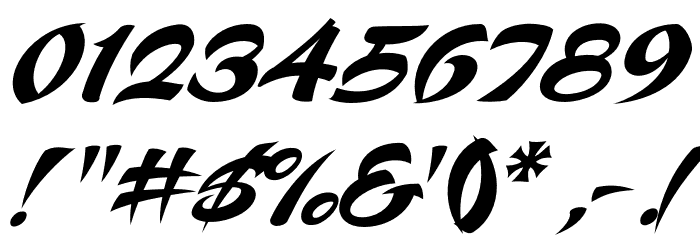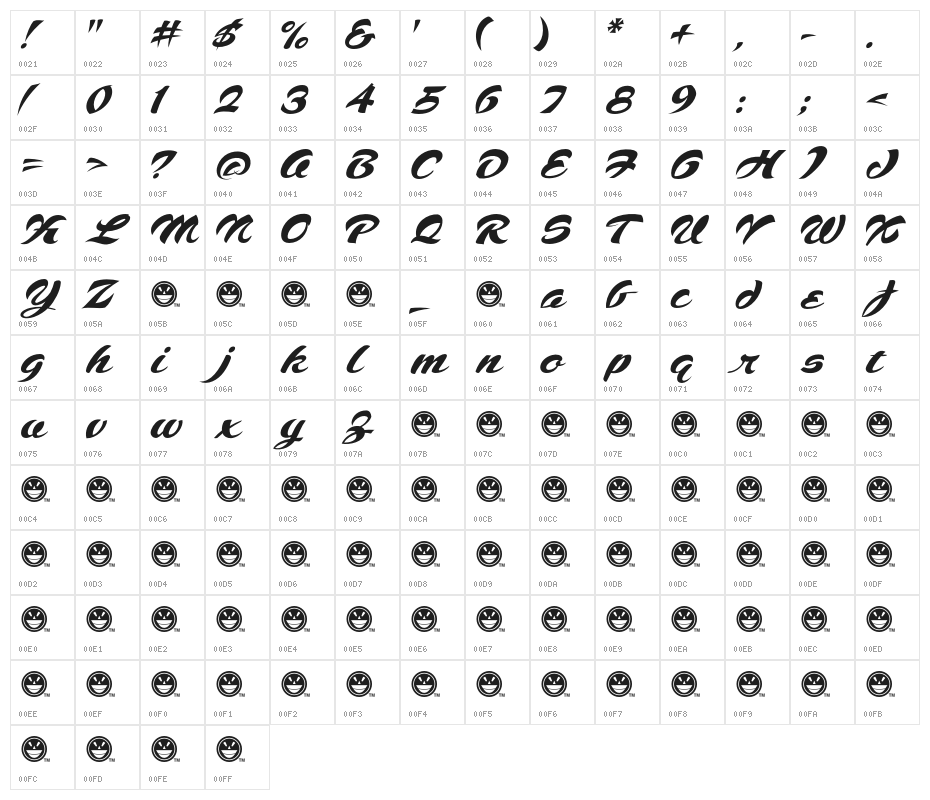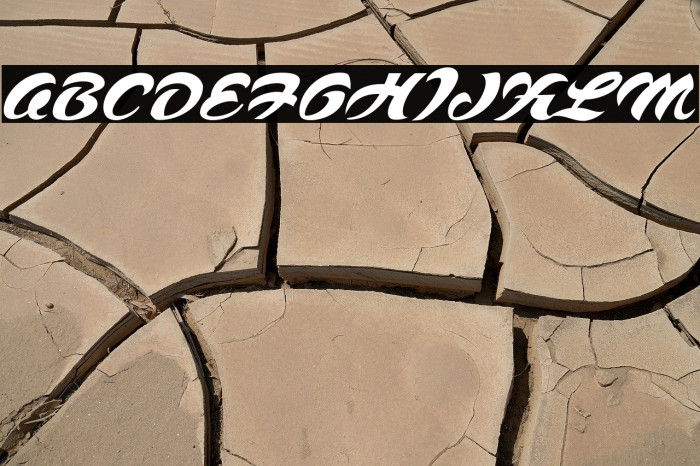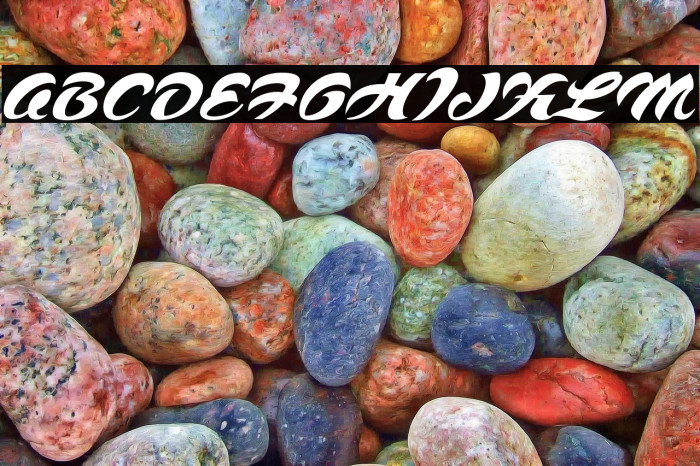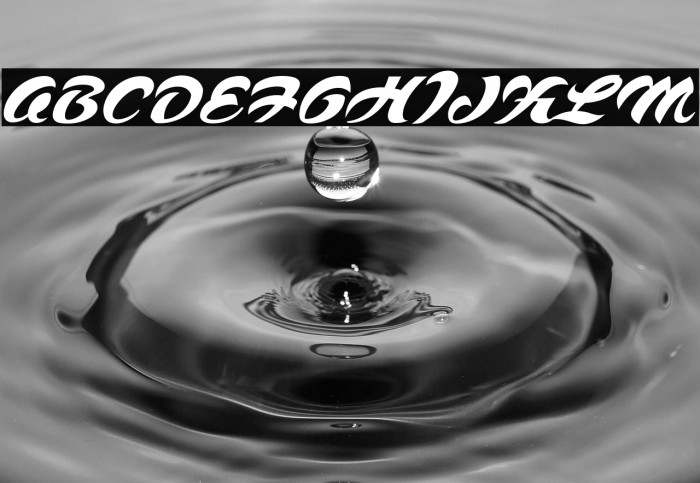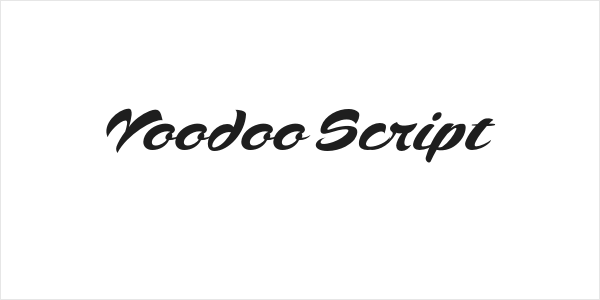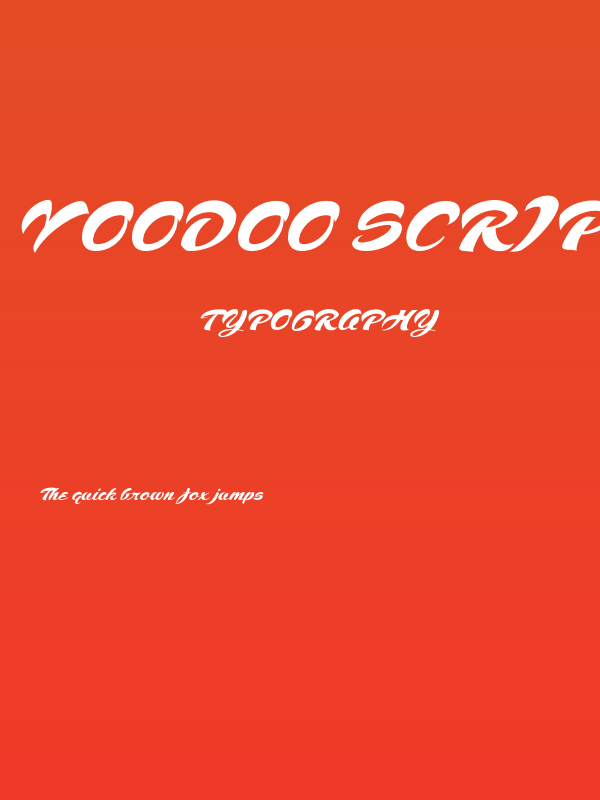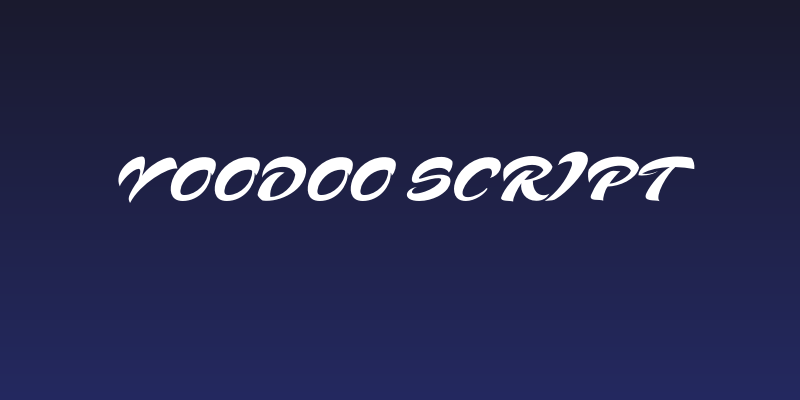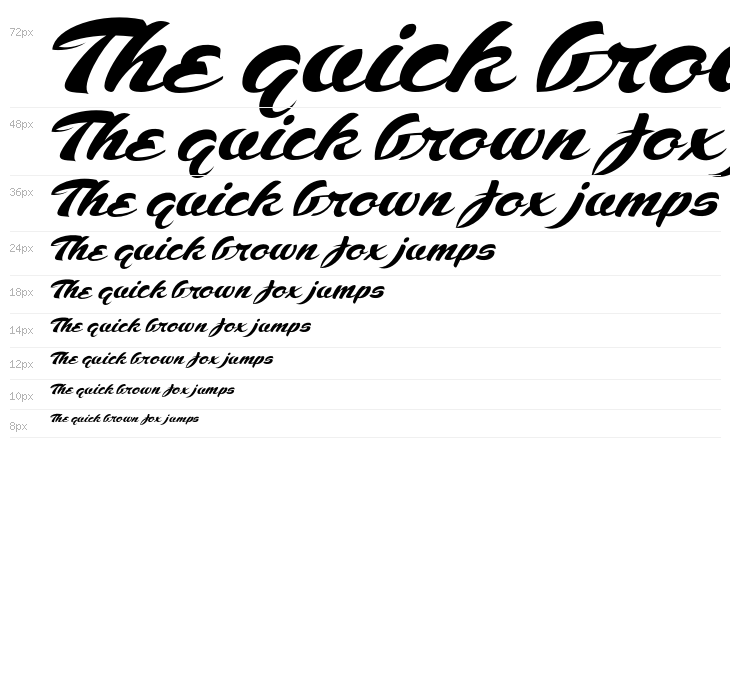
Voodoo Script Font
Voodoo Script Description
This font features a bold and dynamic script style, characterized by its fluid, cursive strokes and dramatic flair. The letters are interconnected, creating a sense of movement and elegance. The uppercase letters are particularly ornate, with sweeping curves and flourishes that add a touch of sophistication. The lowercase letters maintain a consistent flow, enhancing readability while retaining the decorative nature. Numbers and special characters are designed with the same attention to detail, ensuring a cohesive look across all elements. The overall appearance is both stylish and impactful, making it suitable for projects that require a touch of elegance and personality.